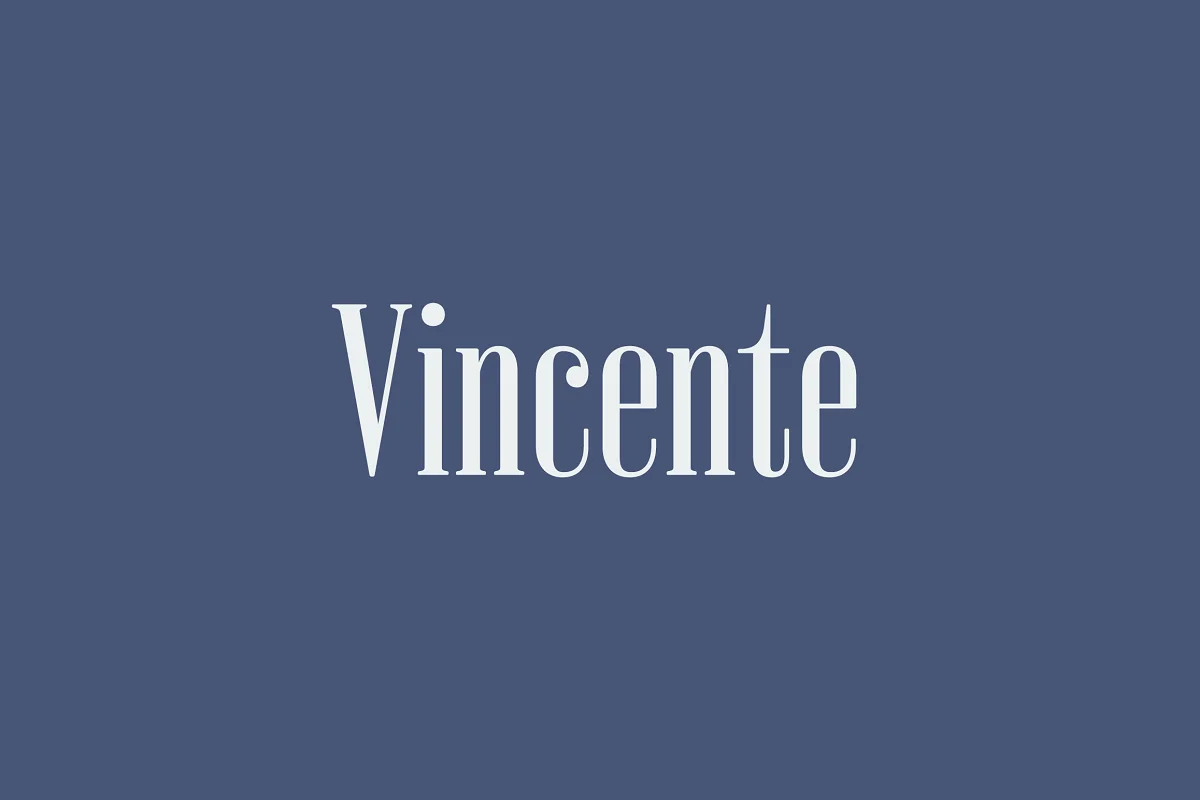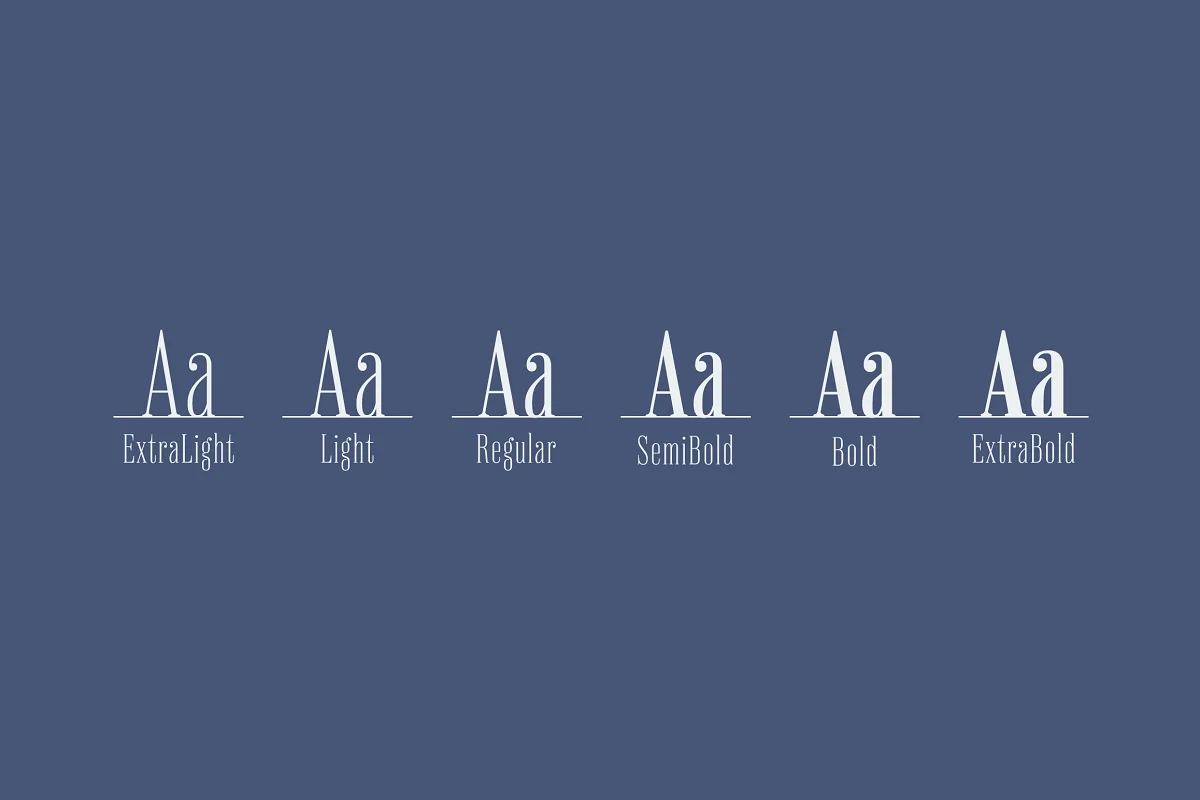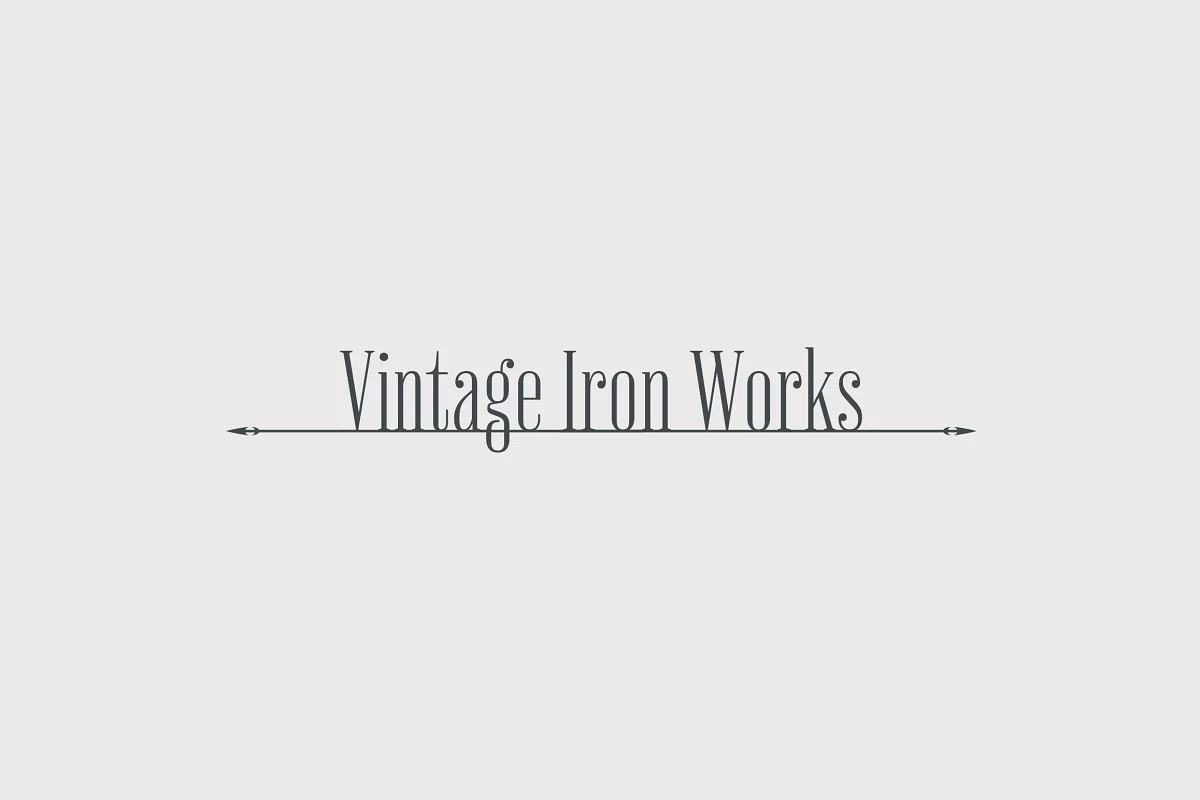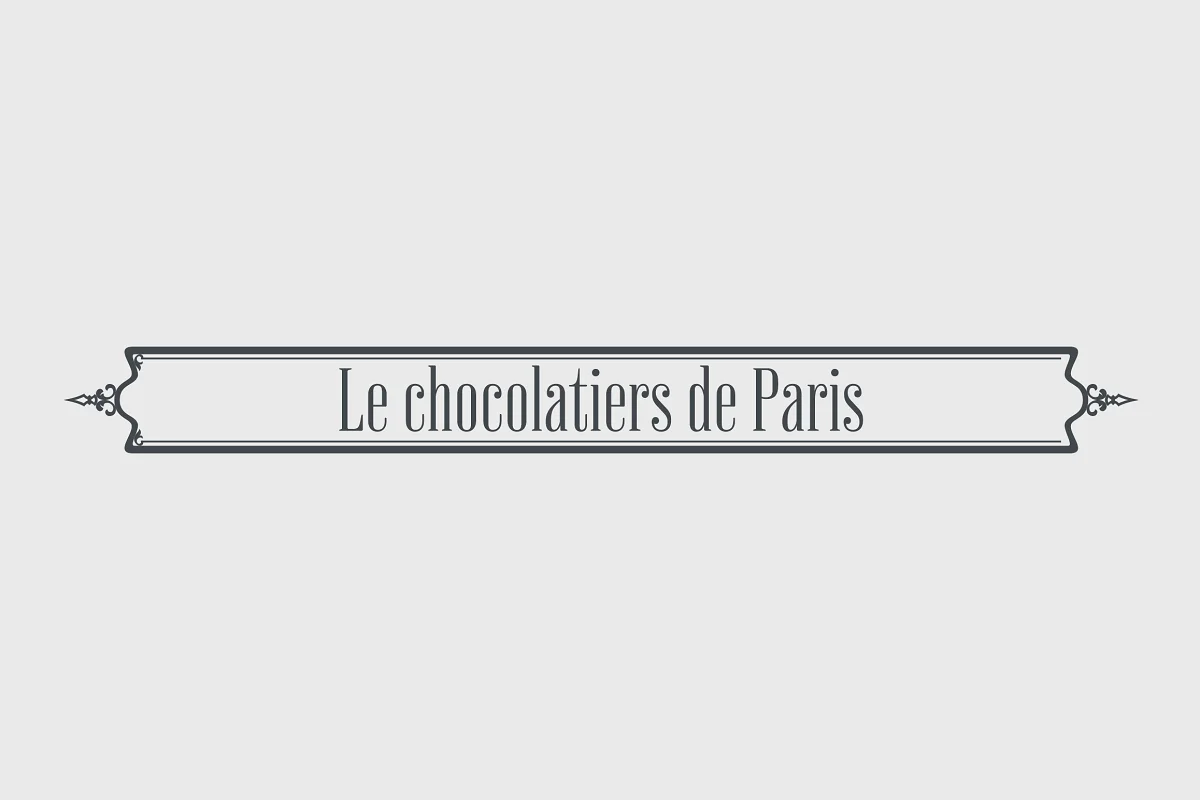
About the Vincente Font
Vincente is a contemporary but Didone-look serif with condensed proportion.
Inspired by vintage iron works and antique botanical pictorial books. Very simple and orthodox letter forms with some charming accent such as can be seen in “y”.
Sophisticated curves but they have human warmth as if they are hand-crafted. Consists of six weights and supporting almost all Latin languages.